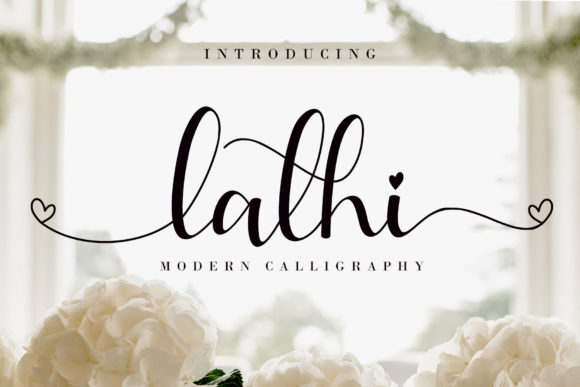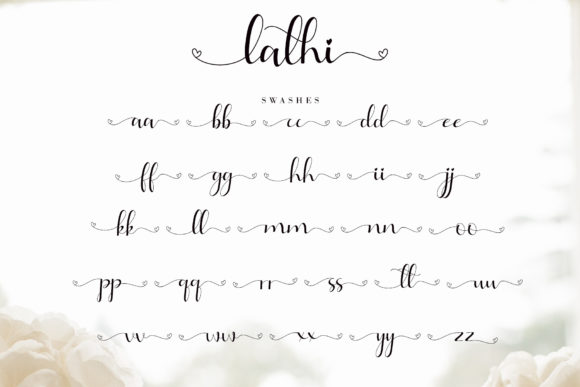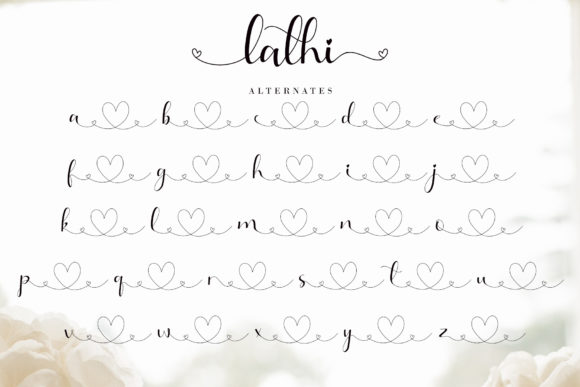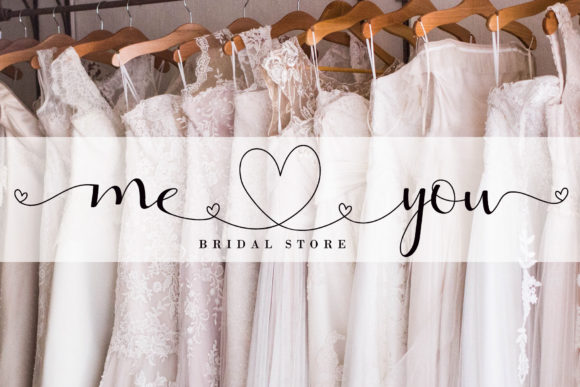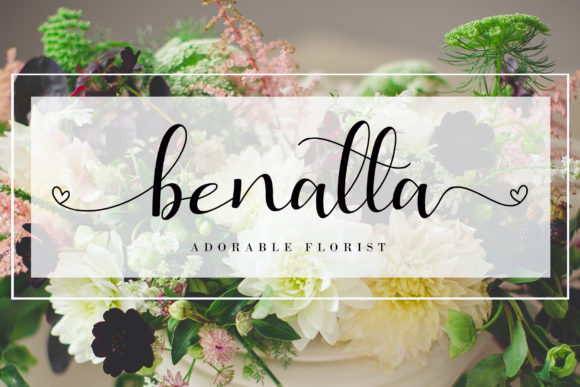
About Lathi Font
Lathi is a beautiful modern handwritten font featuring cute hearts in its swashes. It will elevate a wide range of design projects to the highest level, be it branding, headings, wedding designs, invitations, signatures, logos, labels, and much more!